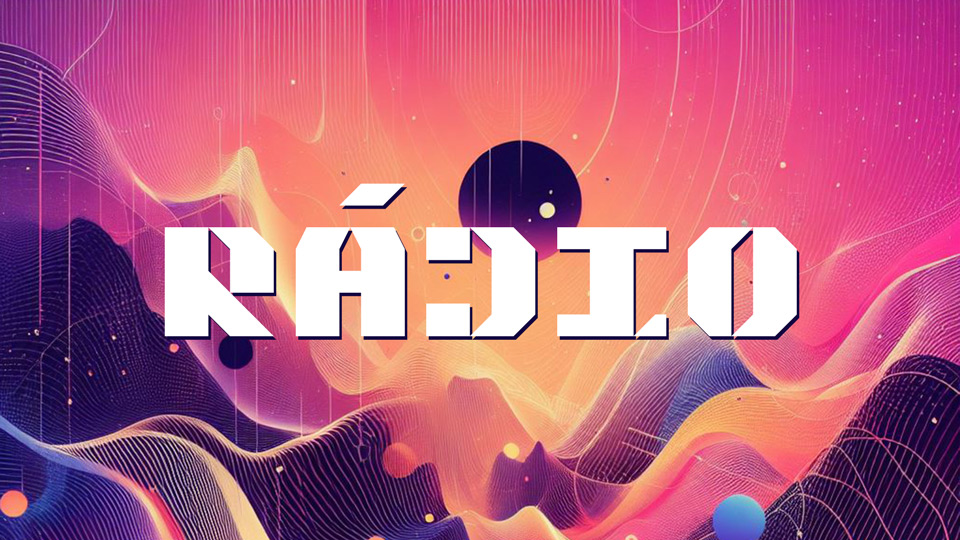
Download Radio font, the typeface that embodies the perfect balance between geometry and boldness in the world of display typography. This geometric, angular block display font is engineered for designs that demand to make a bold, impactful statement.